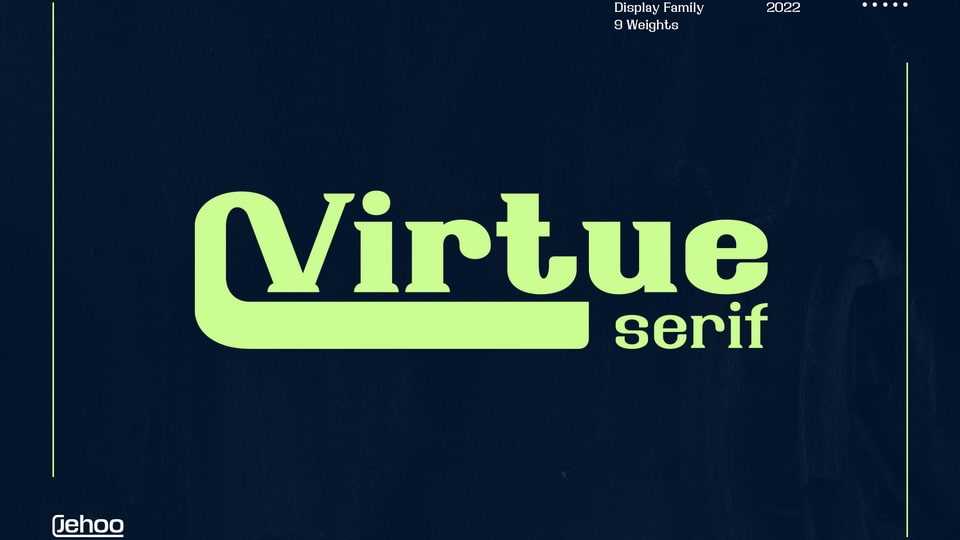
Download Virtue Serif font, a variation of the Virtue Script which is more friendly to use as the body of your design without losing its unique and authentic features while still being a workhorse in display use.
Designer: Jehoo Creative